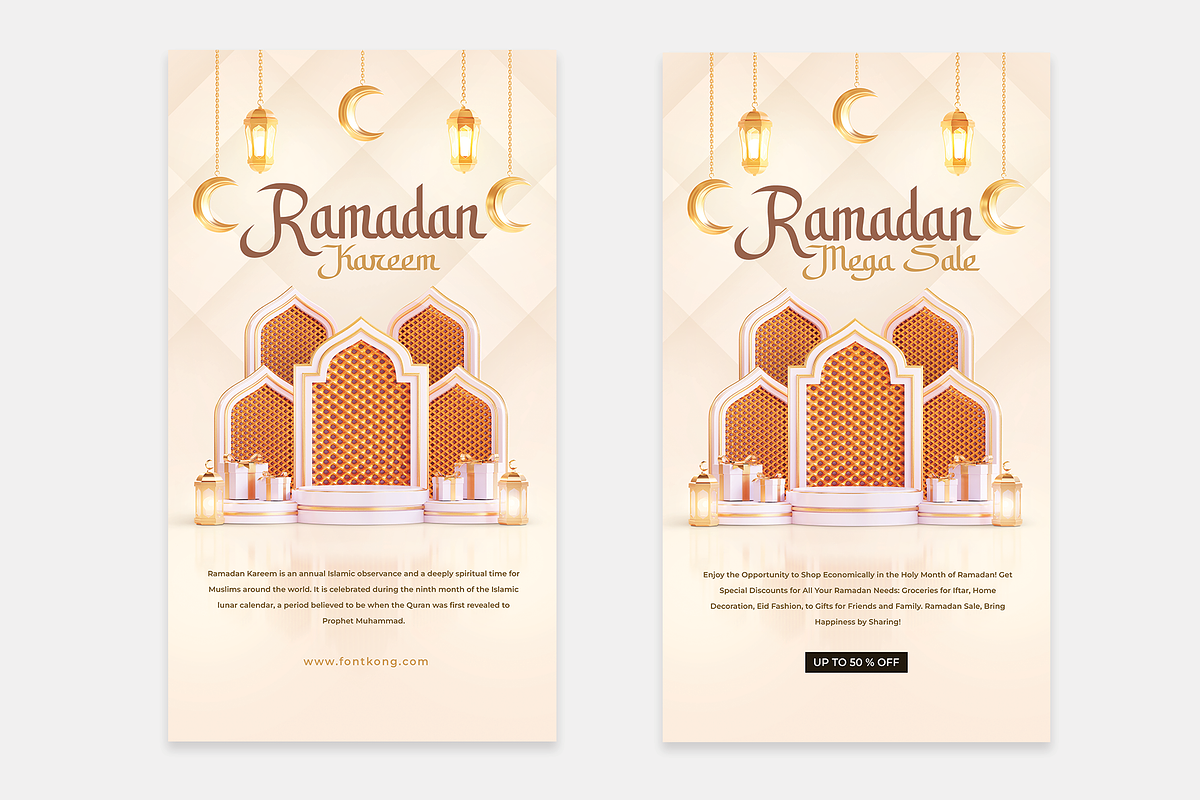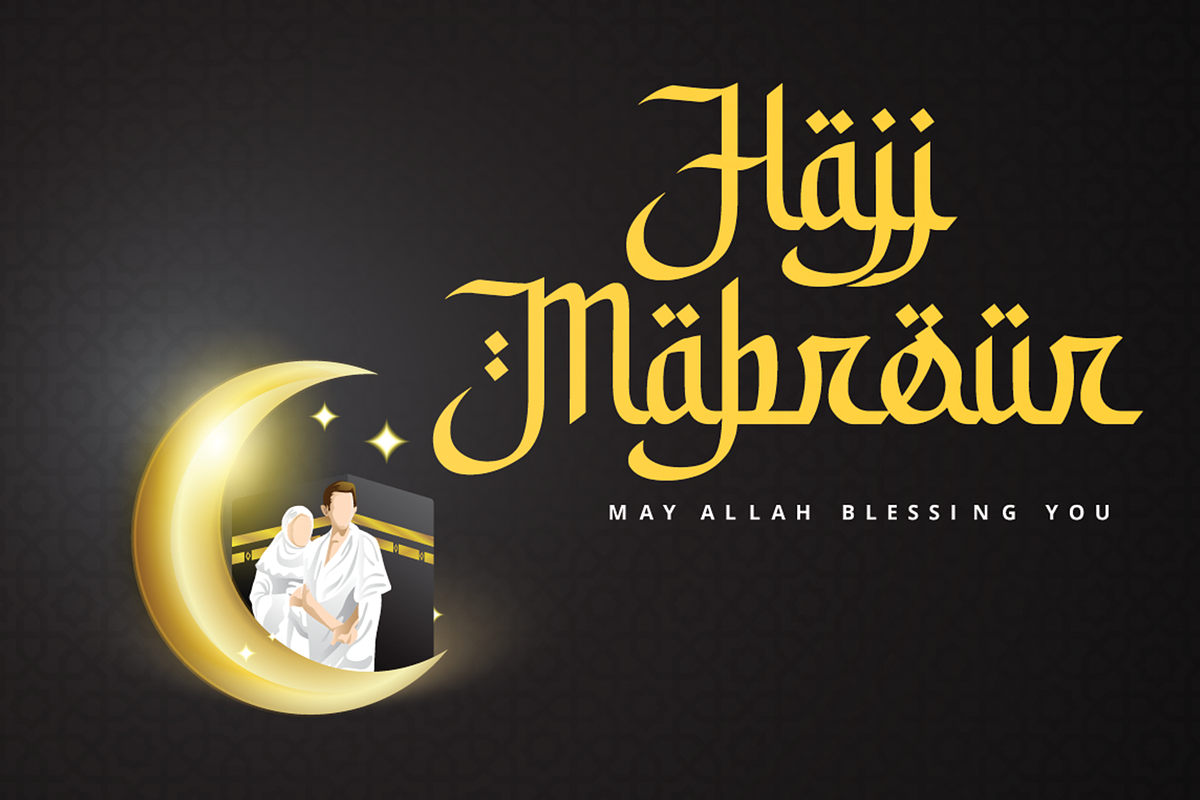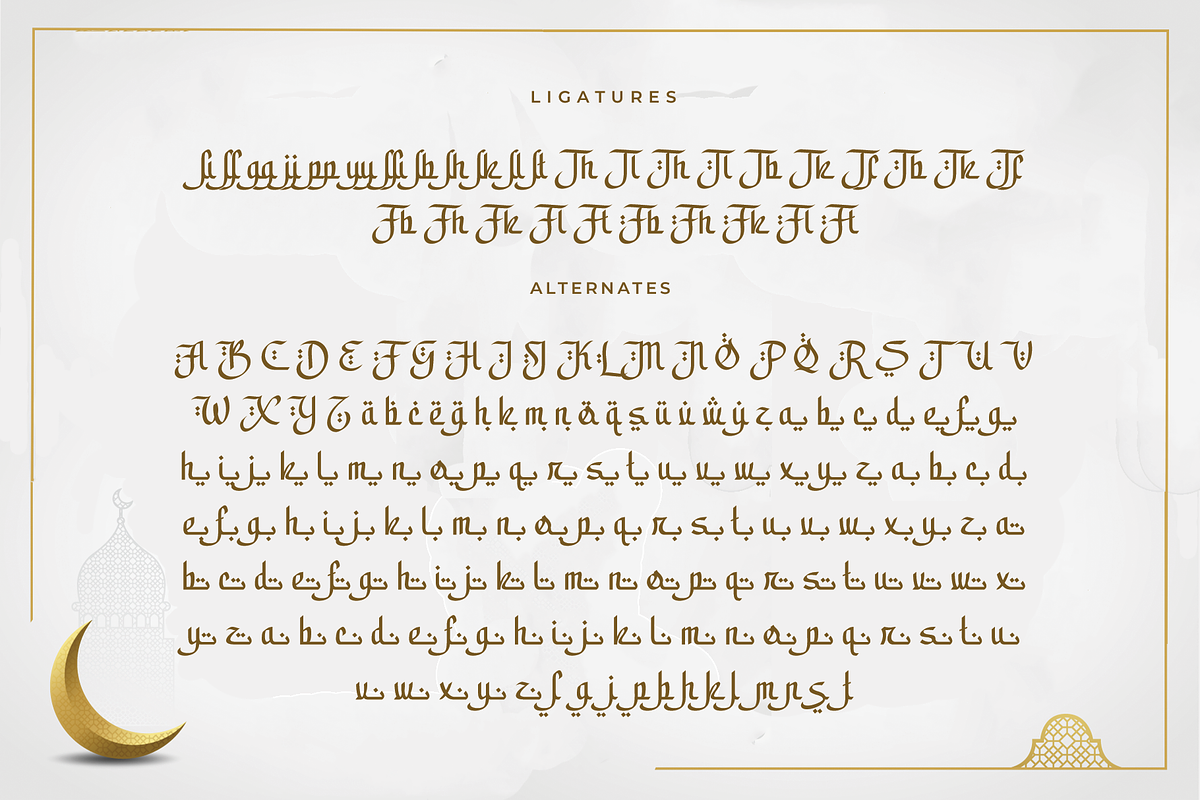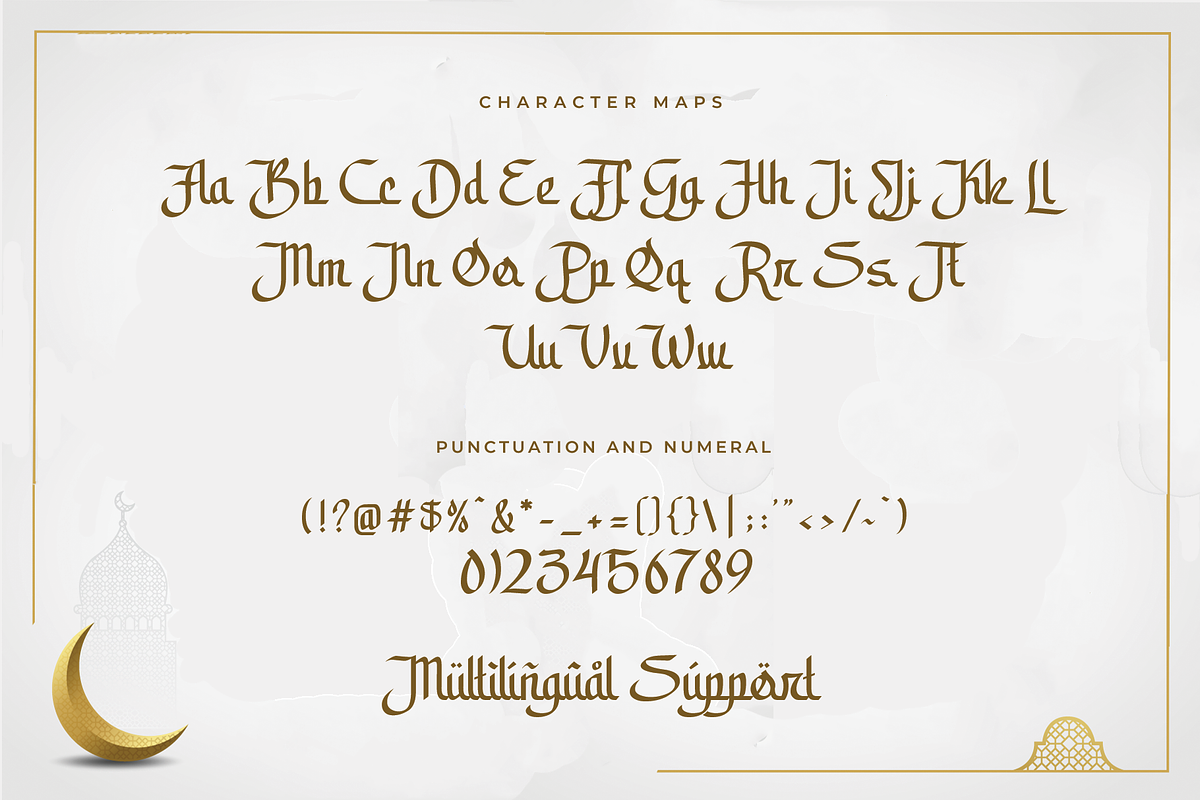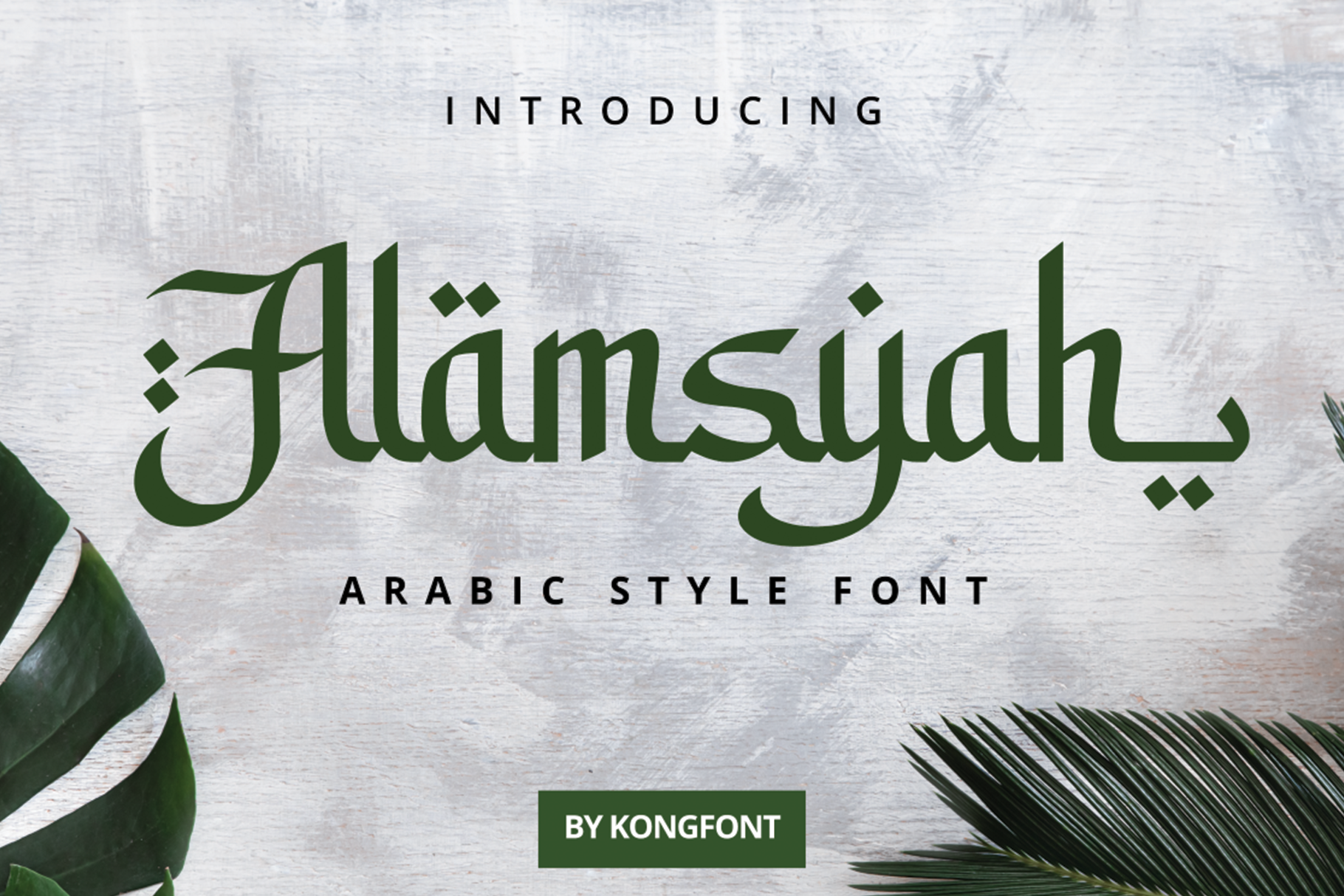
Alamsyah - Elegant Arabic Style Font
Alamsyah is an elegant Arabic-style font that combines traditional beauty with modern versatility. Its flowing lines and detailed strokes make it perfect for creating stunning Islamic art, logos, branding, and classic typography projects. Whether you’re designing for a religious event or simply adding an exotic touch to your project, Alamsyah’s graceful design elevates your work with sophistication and cultural flair. Perfect for those looking to bring an artistic and elegant Arabic-inspired aesthetic to their designs.